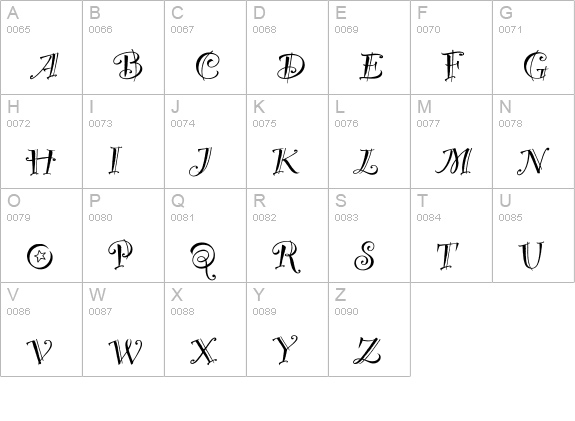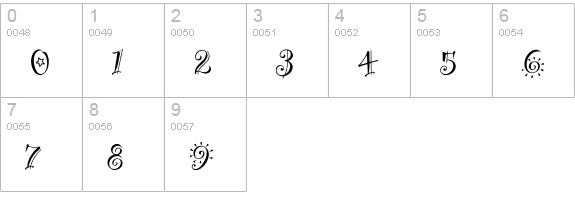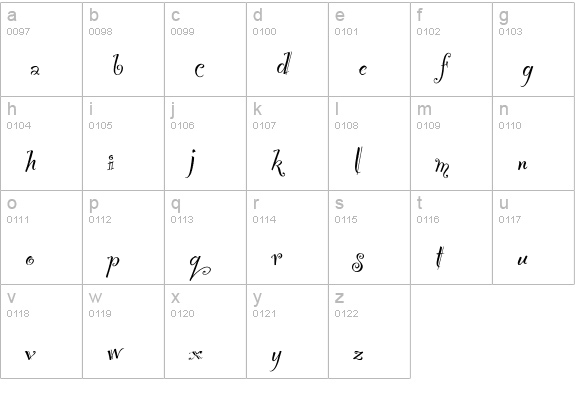
Party Plain Font Details
Introducing Party Plain font, a delightful and playful typeface that will bring an extra dose of fun to your designs. This font is the life of the party, with its whimsical and cheerful appearance that instantly adds a touch of celebration to any project. Party Plain font is perfect for invitations, greeting cards, party decorations, and any other design that needs a lively and joyful vibe. Its unique letterforms feature a combination of bold and thin lines, creating a dynamic visual appeal that catches the eye and instantly lifts the spirits. One of the best parts about Party Plain font is that it is completely free! Yes, you read that right. This incredible font is freely available to download at FontsMarket.com, allowing you to bring the party to your designs without breaking the bank. With just a few clicks, you can have access to this fantastic font and take your projects to the next level of festivity. Designed with versatility in mind, Party Plain font is suitable for both digital and print applications. Whether you're designing a birthday card, creating a party flyer, or crafting a social media graphic, this font will effortlessly make your text pop and captivate your audience. So why wait? Get the party started with Party Plain font today! Visit FontsMarket.com and download this fabulous font for free. Let your designs shine with the joy and excitement that this font brings, and watch as your creations become the life of the party!